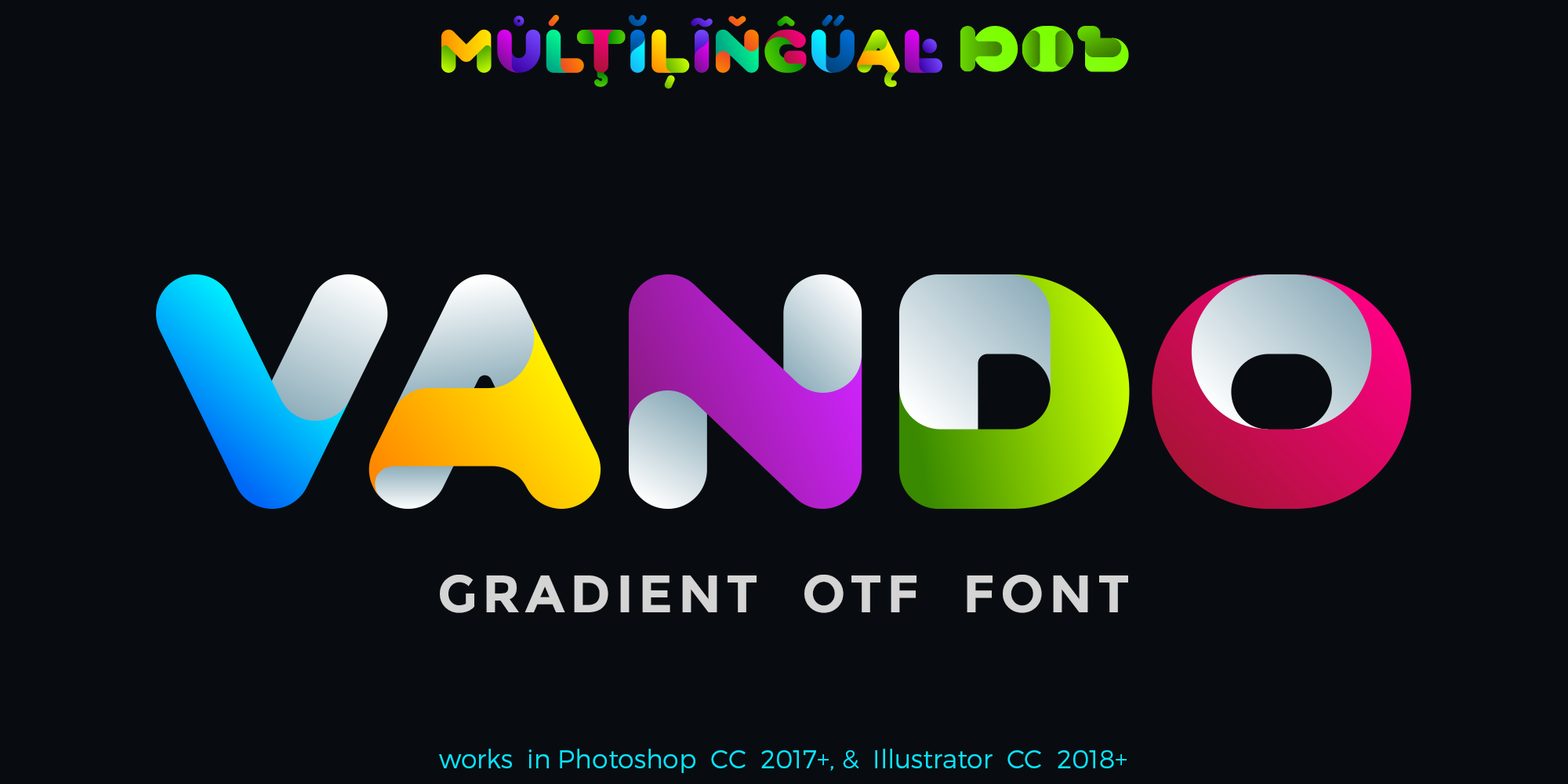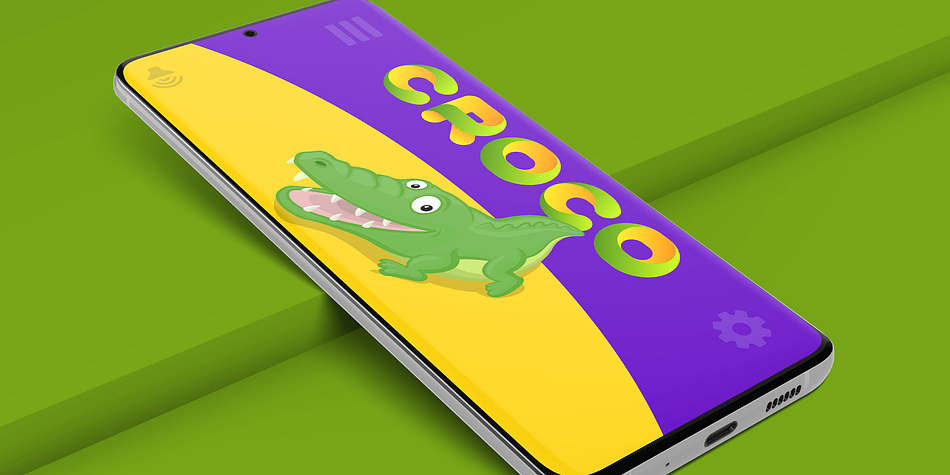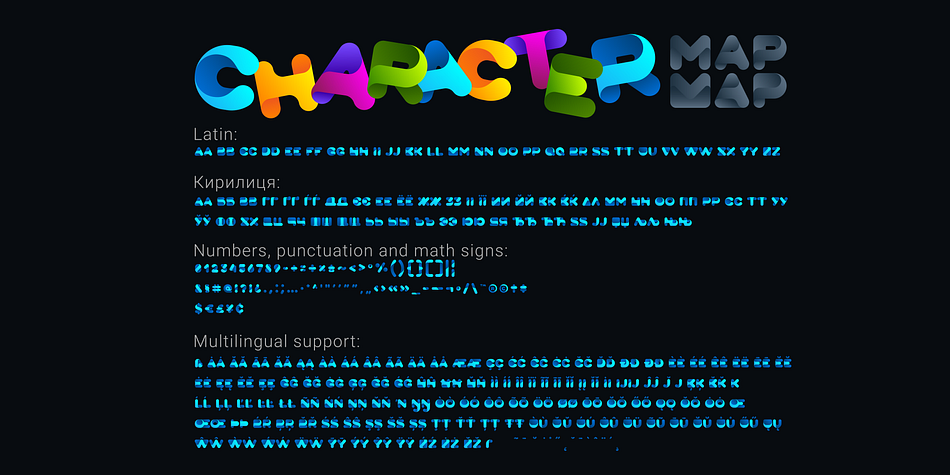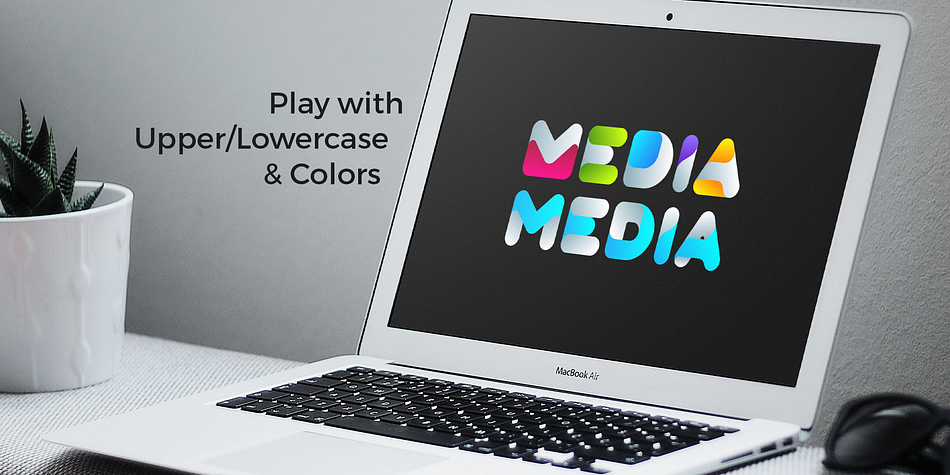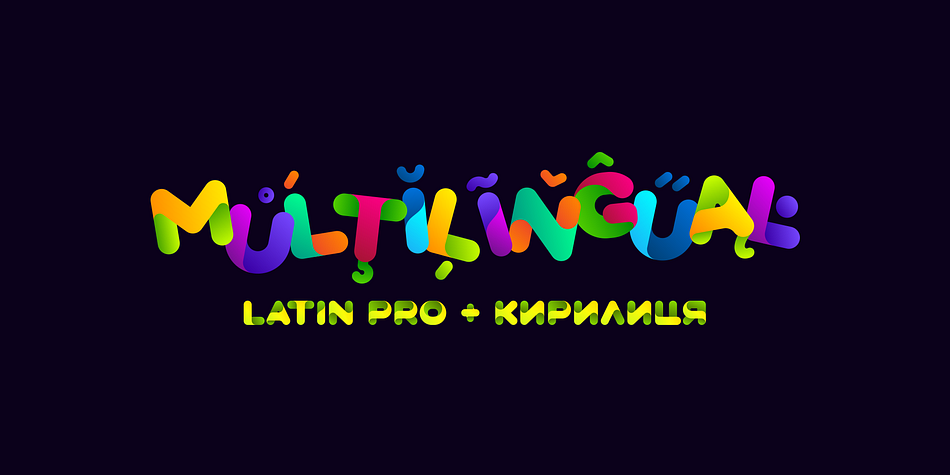
Vando
Vando is a kids font family published by Sentavio.
**Vando** is friendly innovative creative font can be used as logo design and branding, games & apps, headlines, posters & banners in such areas as Entertainment, Technology, Promo Ads, Food etc.
You may play with letters changing theirs colors, position, rotation to make new and interesting font combinations.